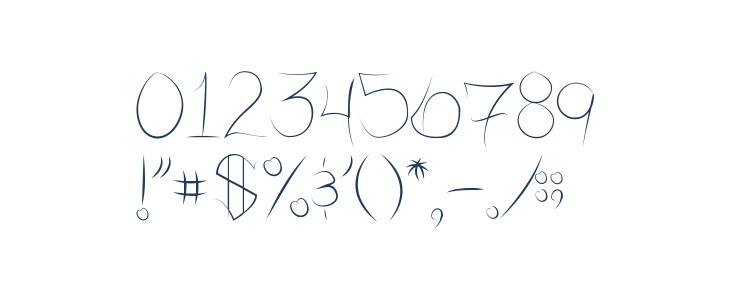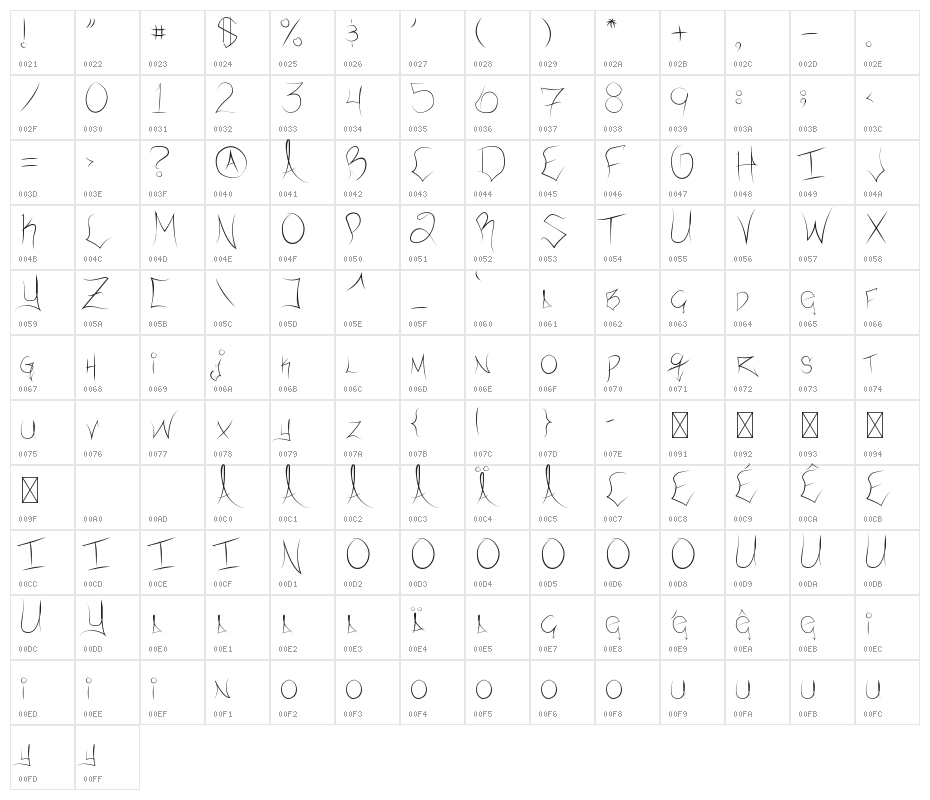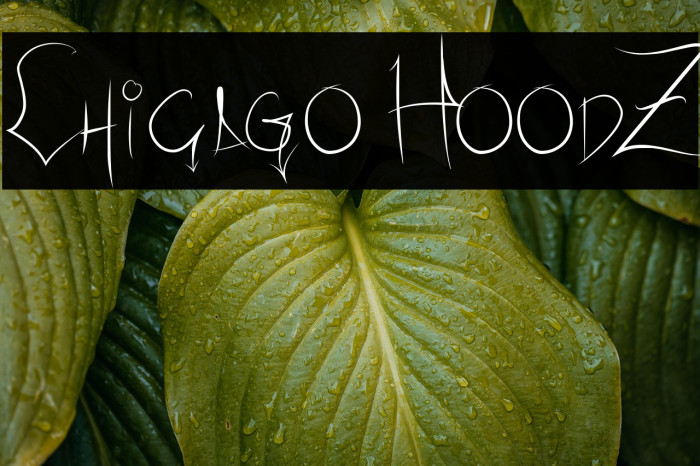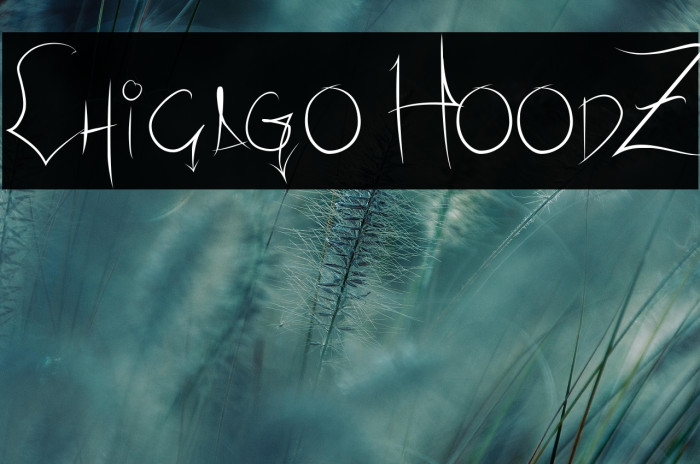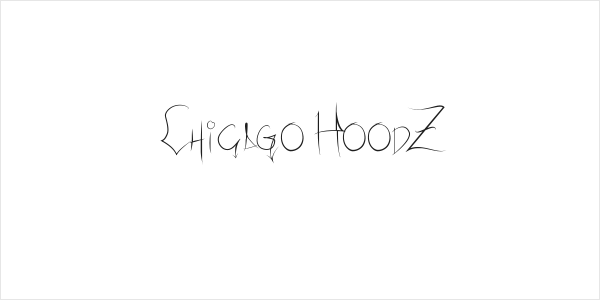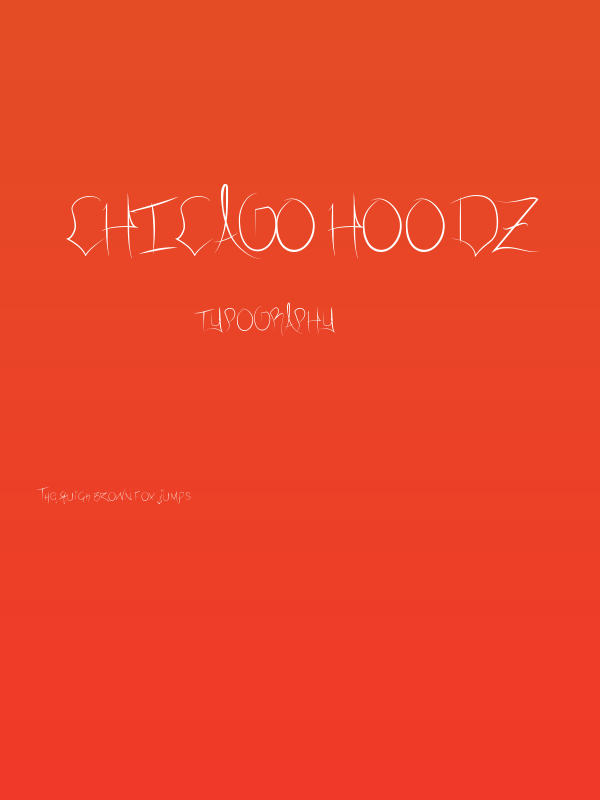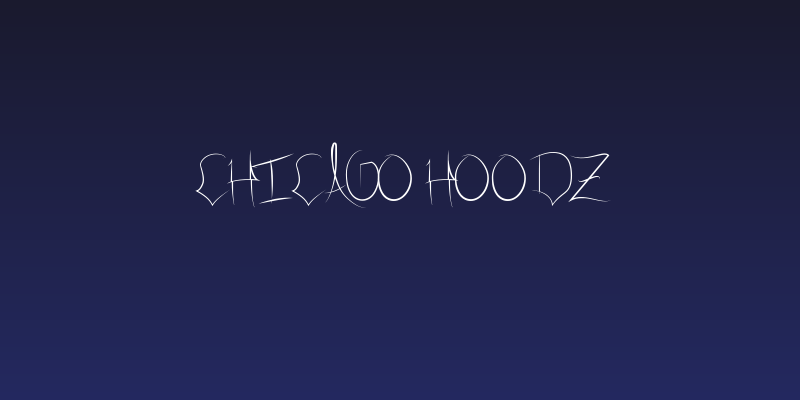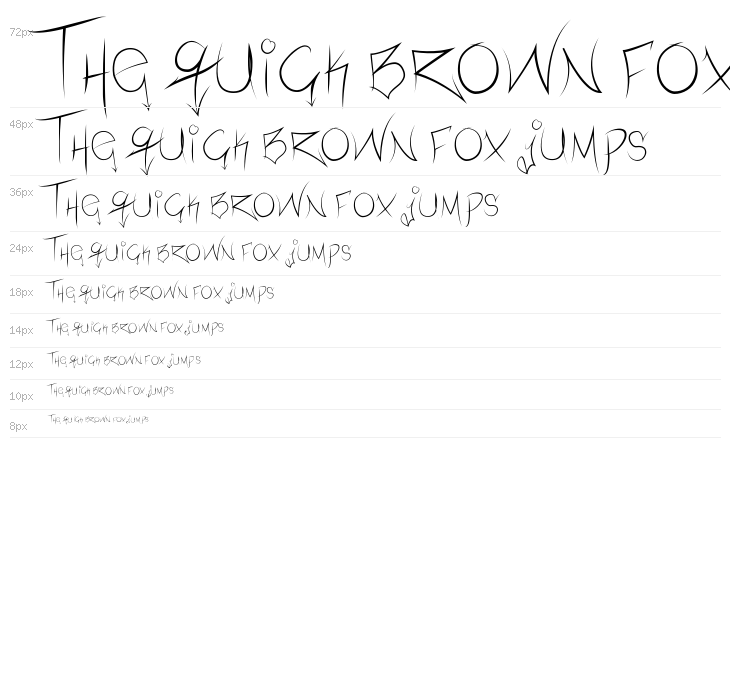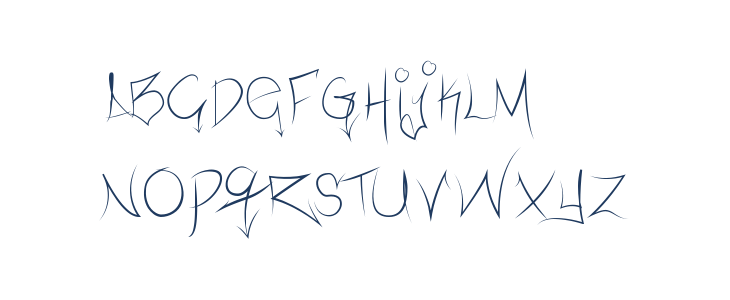
Chicago HoodZ Font
Chicago HoodZ Description
This font features a unique, edgy style with sharp, angular lines and a graffiti-inspired aesthetic. The uppercase and lowercase letters exhibit a dynamic flow, with exaggerated curves and pointed ends that give it a rebellious and urban feel. The numbers and special characters maintain this theme, incorporating similar angular and fluid elements. The overall design is bold and expressive, making it stand out in any context. The strokes vary in thickness, adding to the font's dynamic and energetic appearance.
| Overall Style | Modern, Urban, Edgy |
| Proposed Projects | Ideal for street art projects, urban-themed posters, music album covers, and edgy branding materials. |